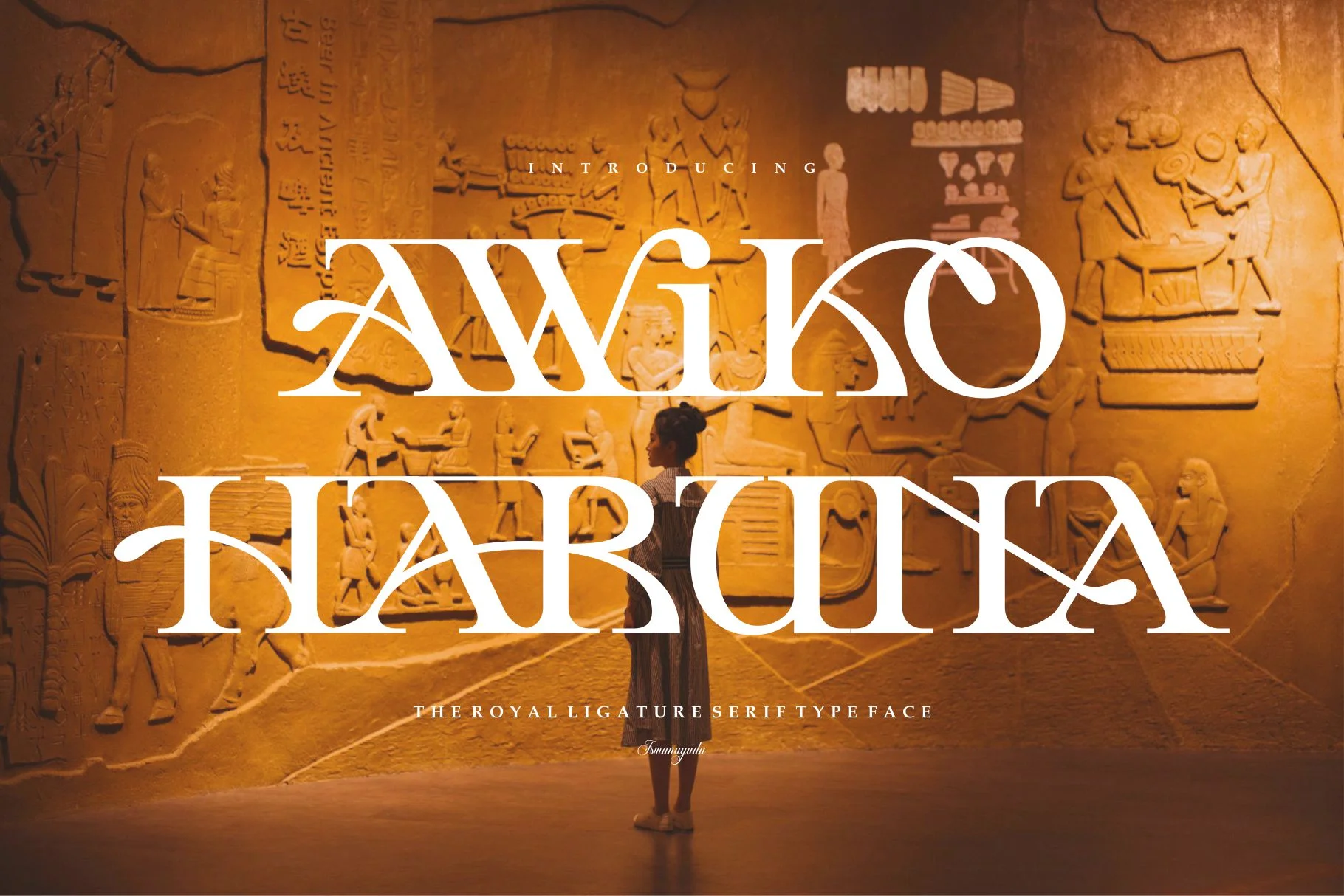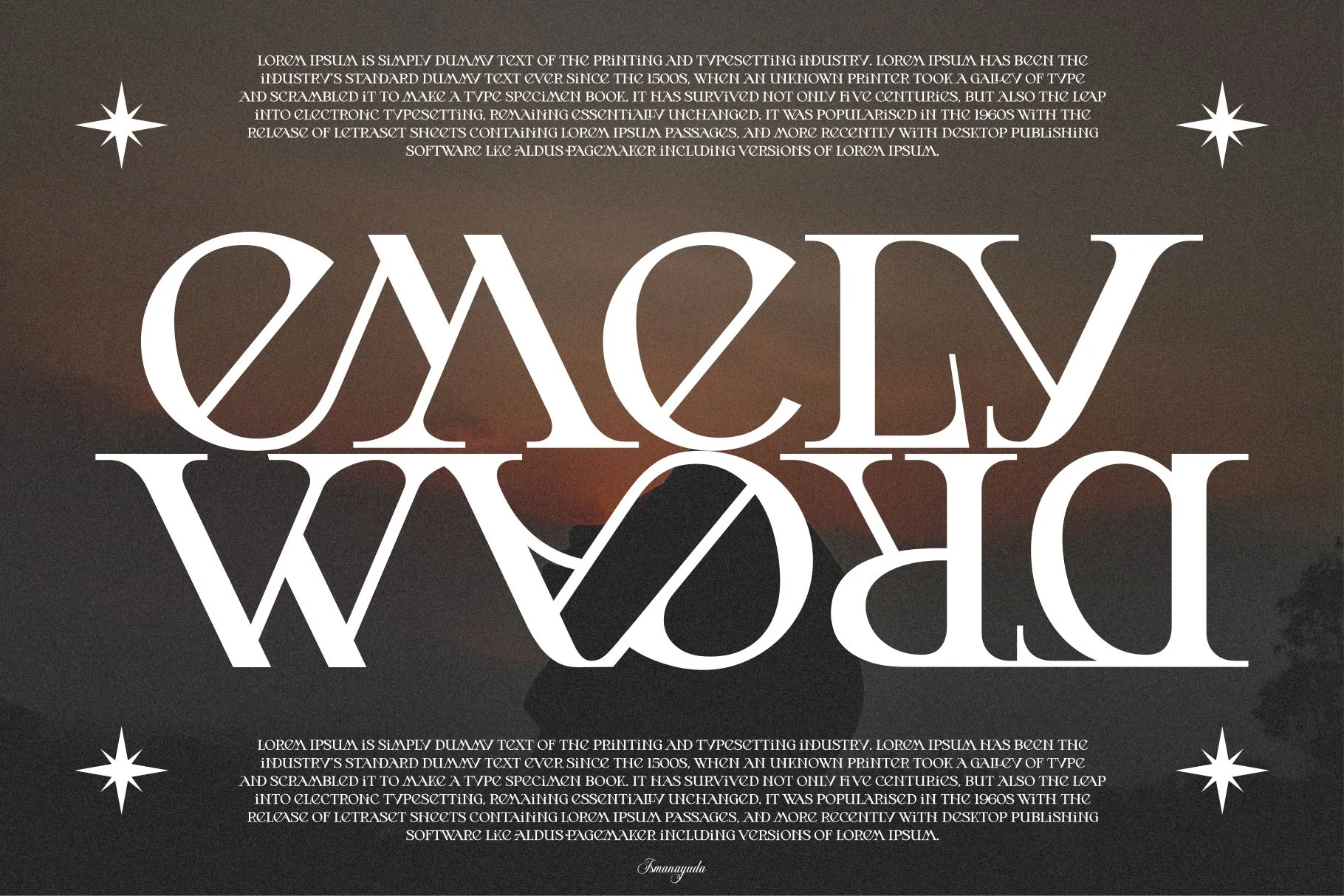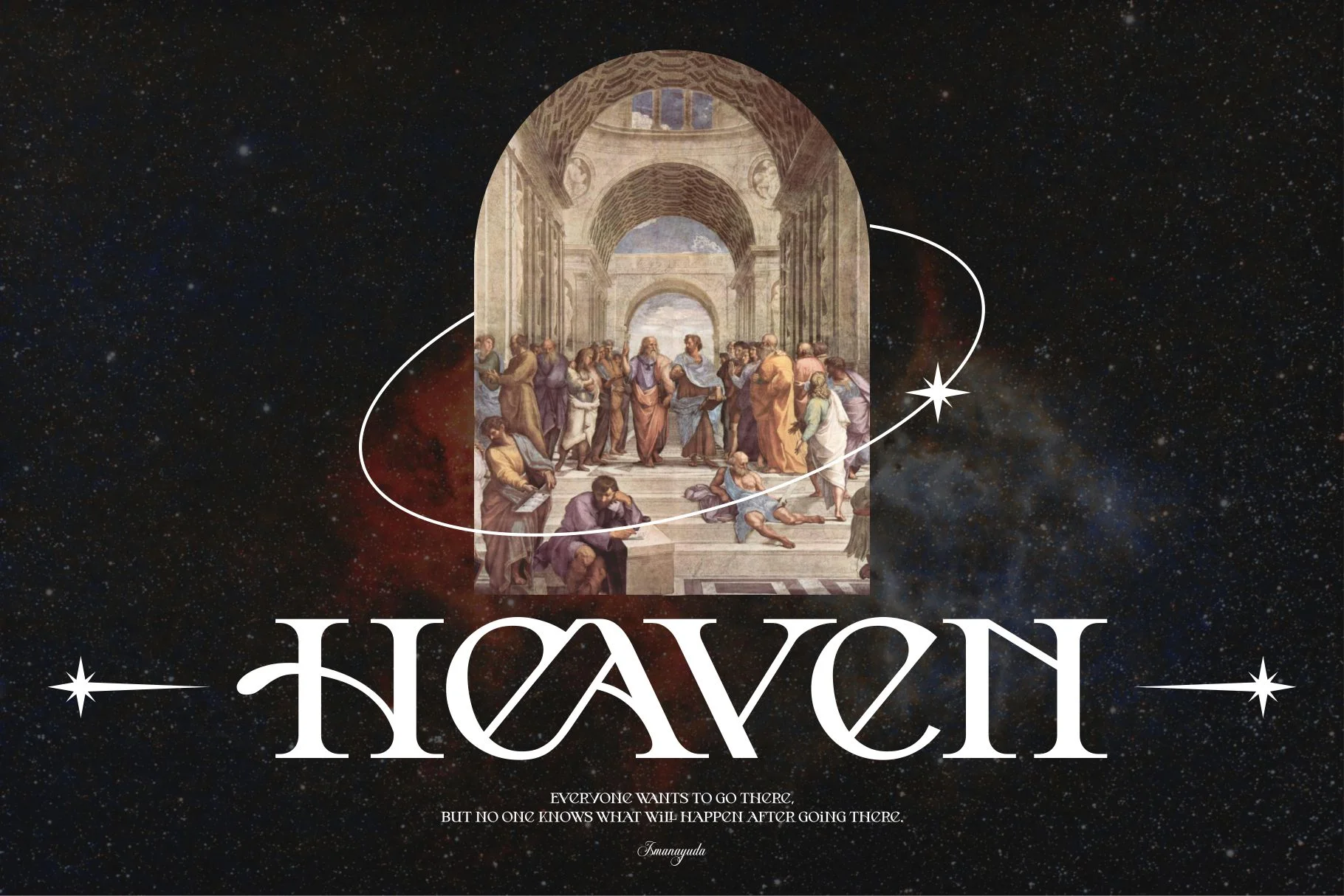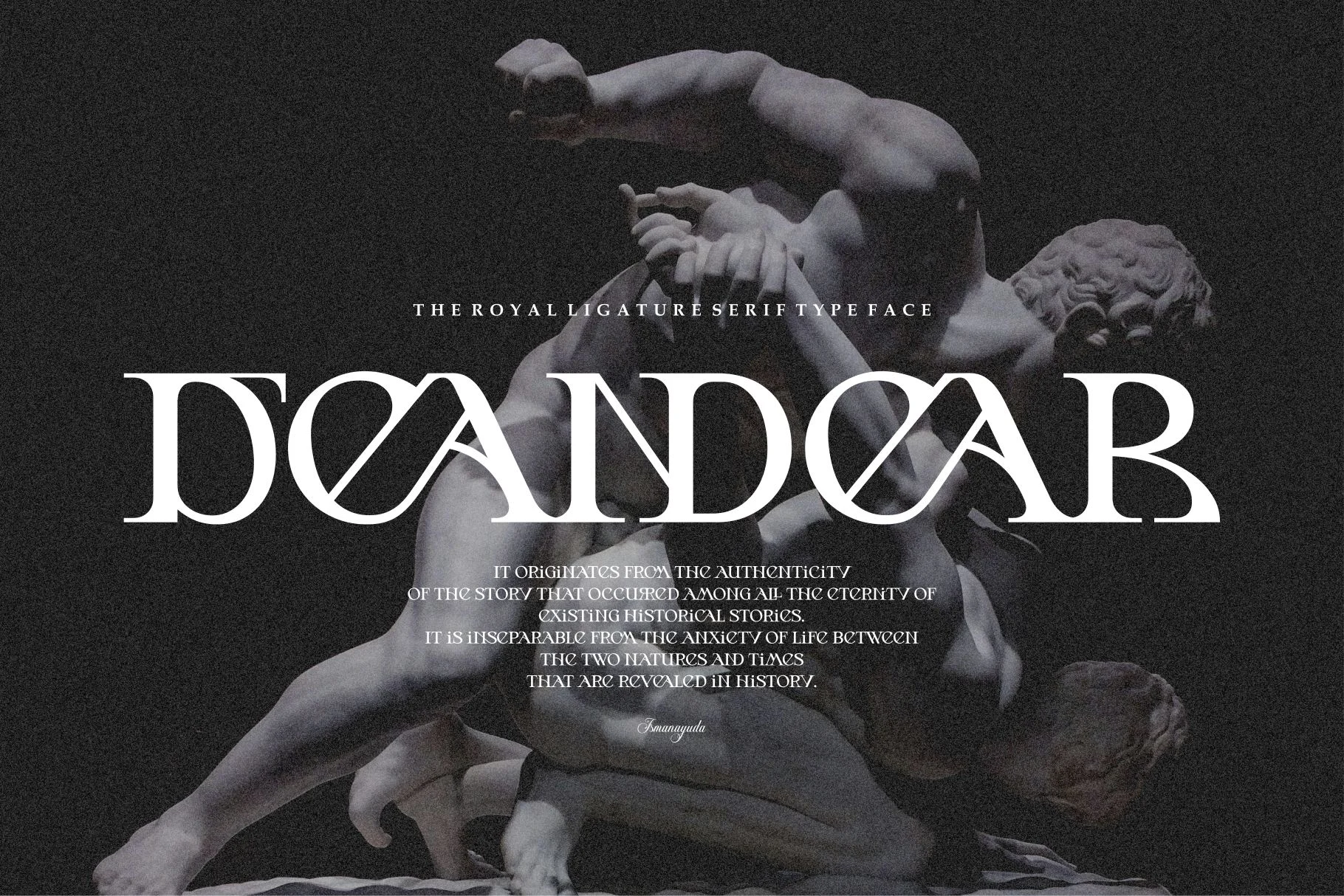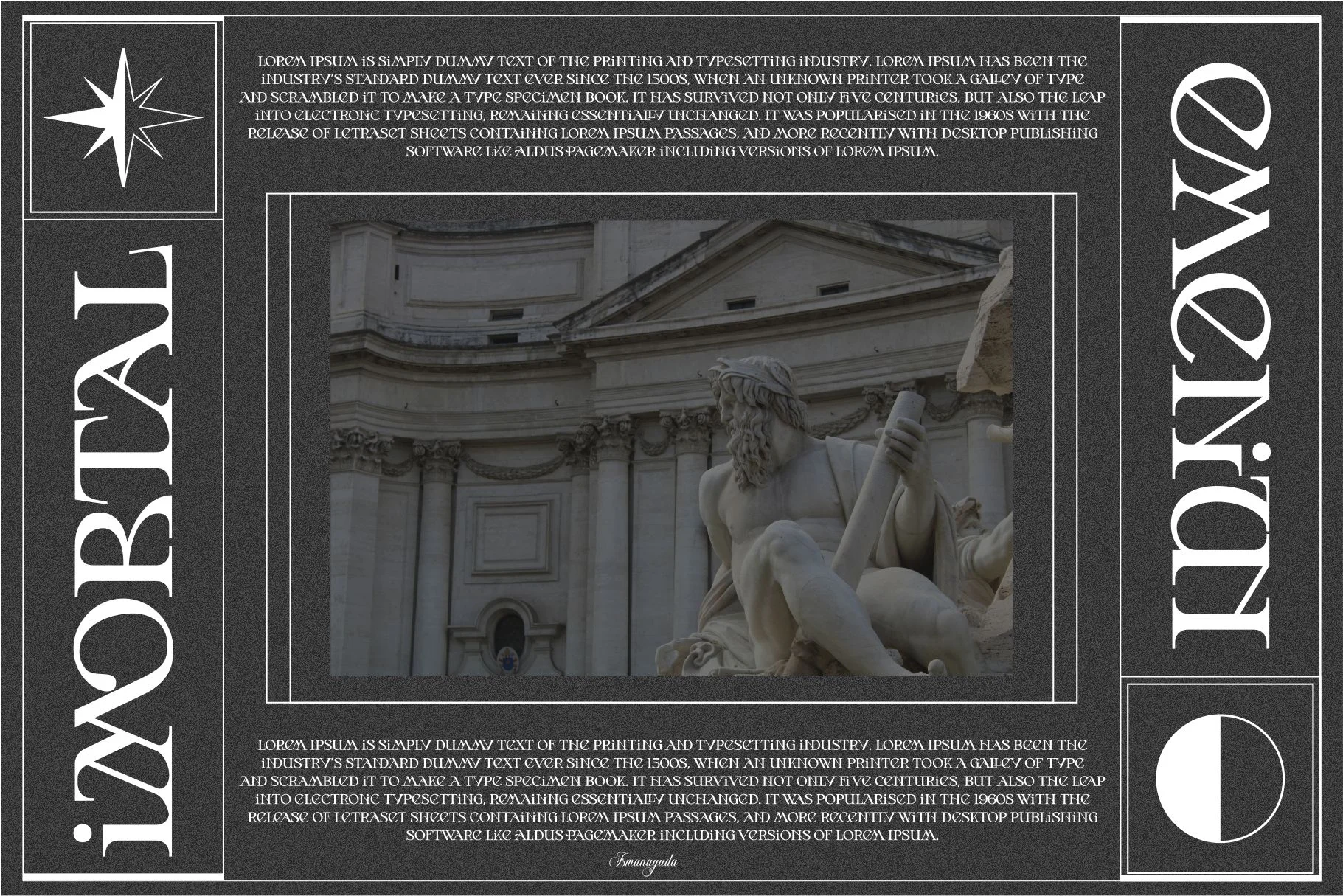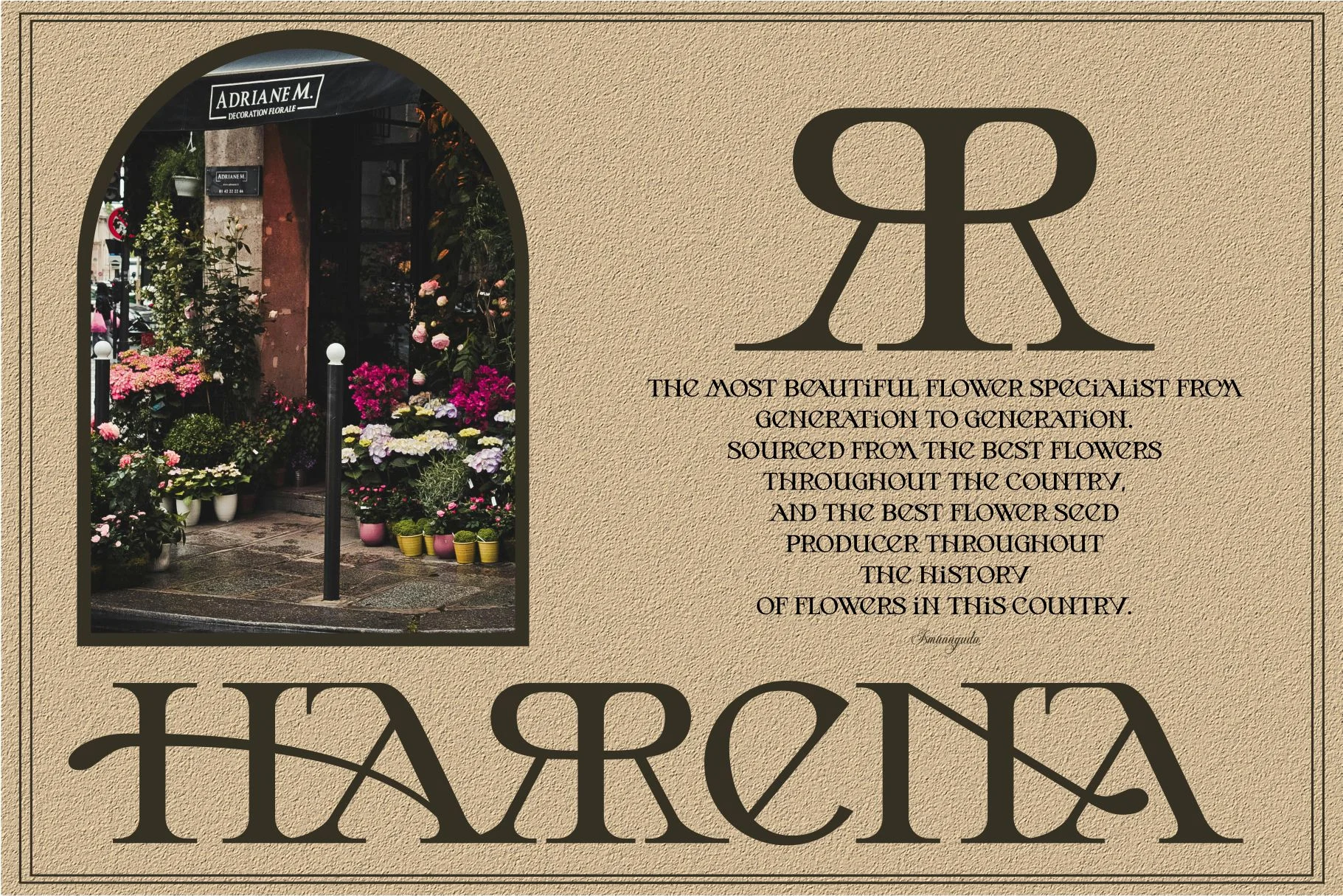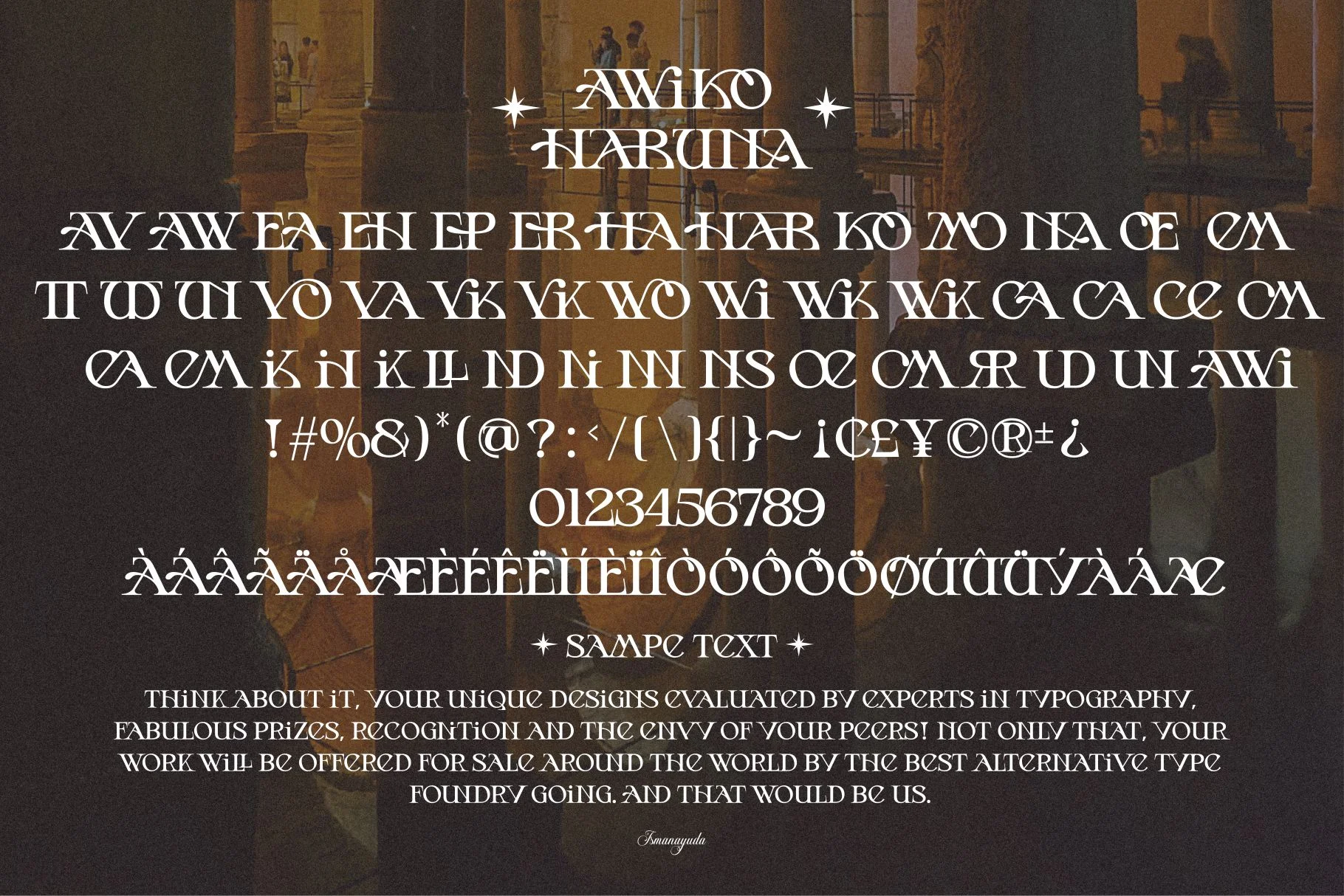
Awiko Haruna
Awiko Haruna is a modern Serif typeface characterized by its elegant and sophisticated "Royal Ligature" style. The font features unique, flowing connections between letters, creating a sense of luxury and exclusivity. It balances classic serif foundations with contemporary artistic flares, such as elongated curves and interlocking characters. This makes it exceptionally well-suited for high-end branding, such as luxury logos, fashion editorials, wedding invitations, and artistic headlines that require a distinct, regal personality.